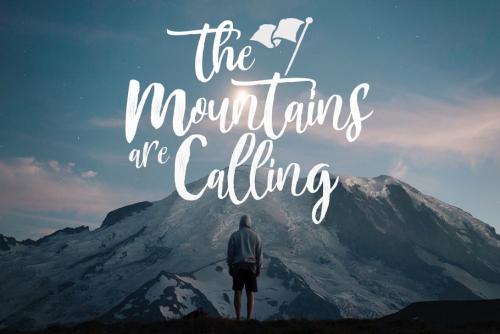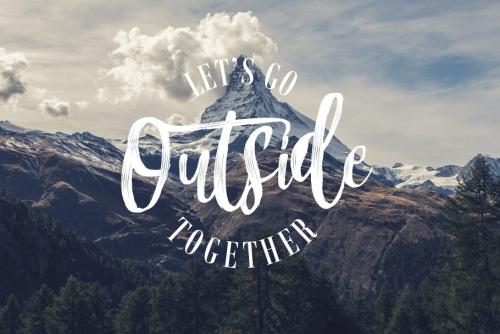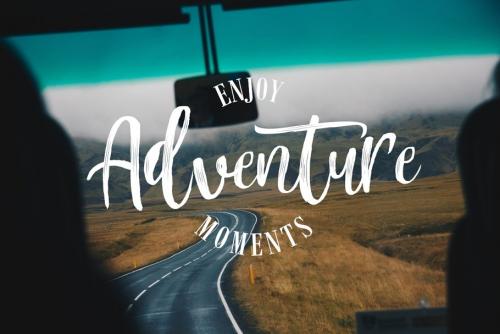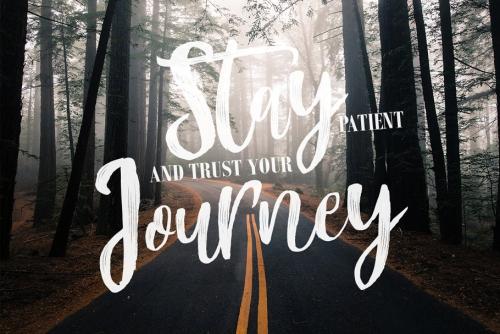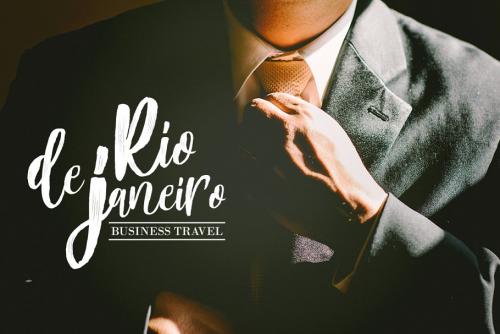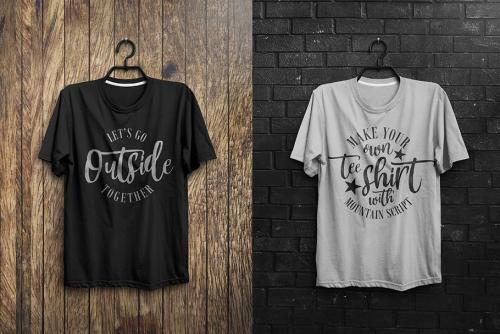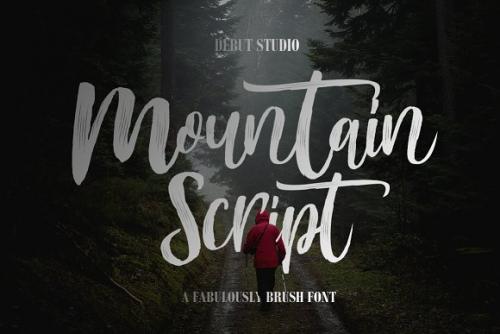
Debut Studio presents the latest font Mountain Script – Brush Fonts. This font is perfect for design purposes such as logo design, t-shirt, heading, magazine, newspaper, website, to design quotations, posters, business cards, and others.